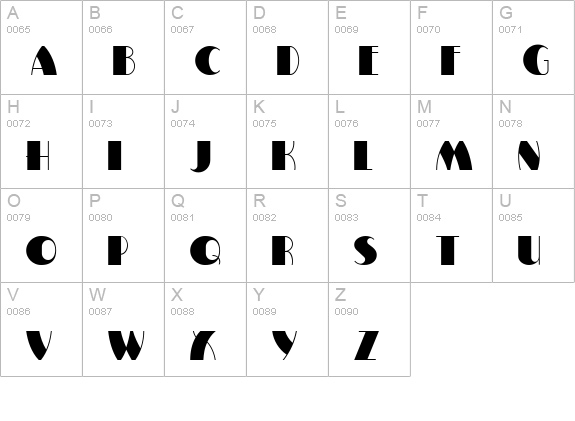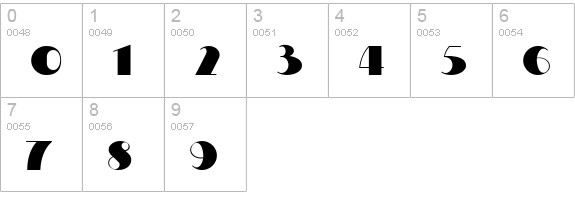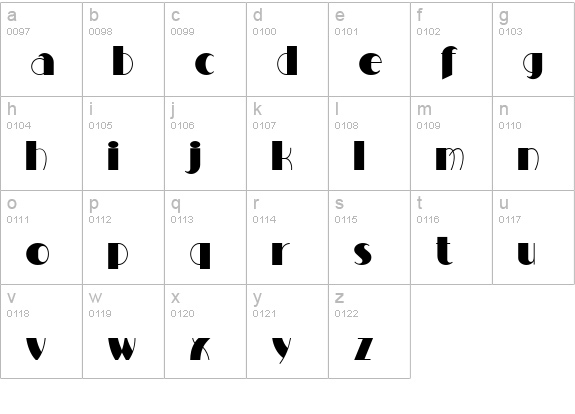
Milton Burlesque NF Font Details
Milton Burlesque NF font is a whimsical and playful typeface that exudes charm and character. This unique font features exaggerated and curvaceous letterforms that add a touch of extravagance to any design project. With its vintage-inspired aesthetic, Milton Burlesque NF font is perfect for creating eye-catching headlines, posters, and branding materials. What makes Milton Burlesque NF font even more appealing is that it is freely available to download at FontsMarket.com. This means you can easily access and use this delightful font in your projects without any cost. Embrace the elegance and fun of Milton Burlesque NF font in your designs and make a statement with its distinctive style.